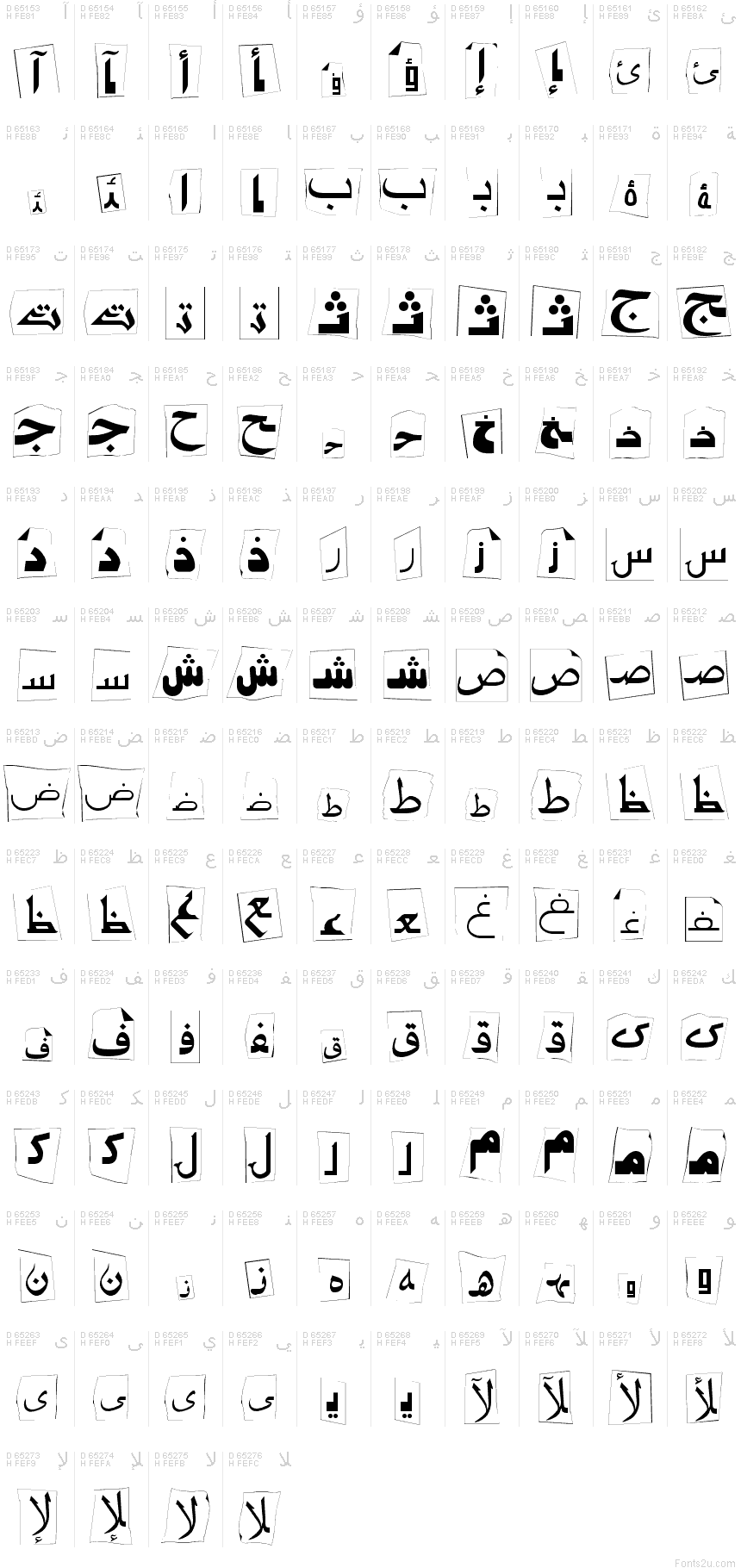
B Kidnap by Borna Rayaneh is a free angular Arabic display font with a stripped-down, almost cut-paper feel. The letters look heavy, compact, and sharply geometric, balancing blunt outer shapes with small carved openings that give the design a tense, poster-like rhythm.
That makes it a natural fit for music flyers, streetwear graphics, title cards, zines, and compact branding where a free font needs an assertive Arabic voice. It works best in short lines and bold moments - cover lines, wordmarks, and quick headline hits - because the dense shapes and hard corners give even a brief phrase a locked-in, graphic presence.